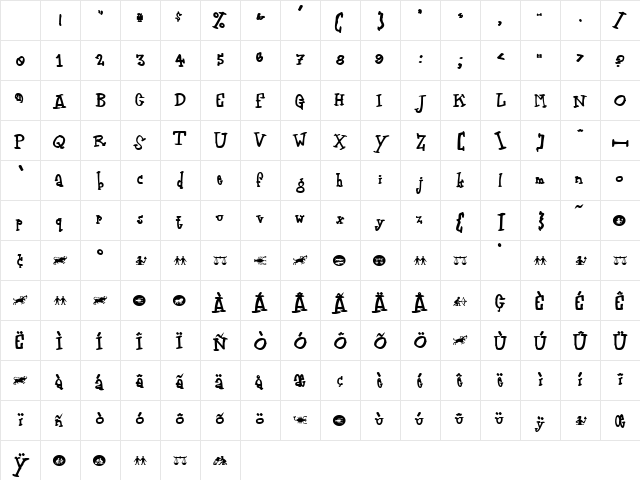
Complete Zodiastic Regular glyph index. Displaying only characters natively supported by Zodiastic Regular font.
Zodiastic is a composed and adaptable typeface that performs quietly and consistently across a wide range of design contexts.